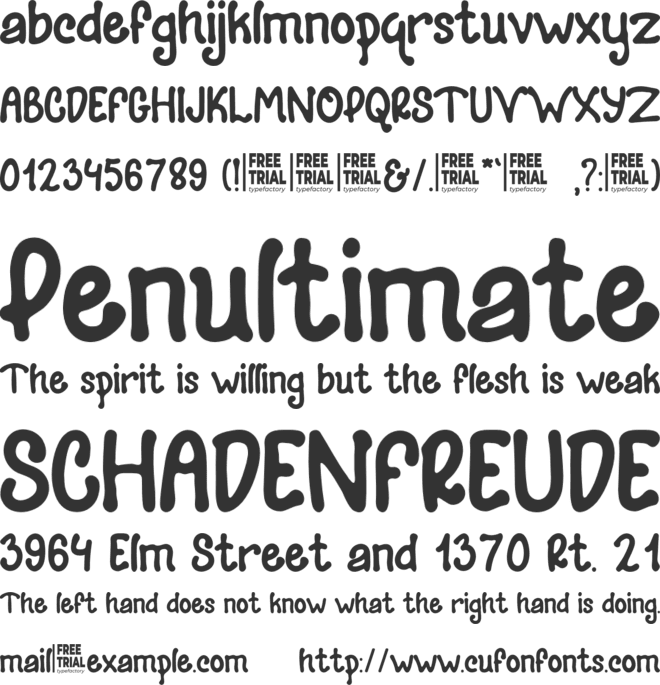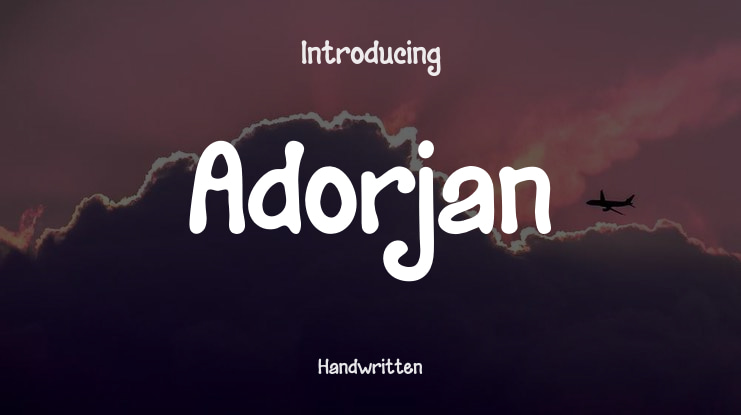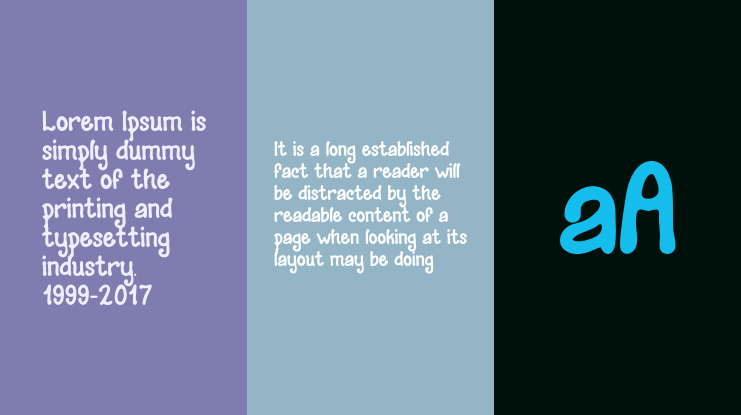
Adorjan Font
Adorjan is a sweet and quirky handwritten font.Dainty and joyful, this font will be ideal for writing neat cards, album cover, quotes, cafe menu, coffee-themed, greeting card or any other design that may need a personalized touch!Full Version Download Here :https://typefactory.co/product/adorjan-quirky-handwritten-font/https://www.creativefabrica.com/product/adorjan/ref/501262/